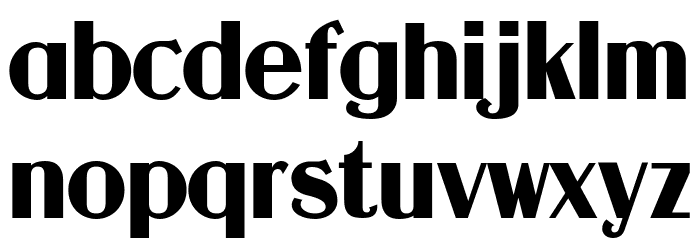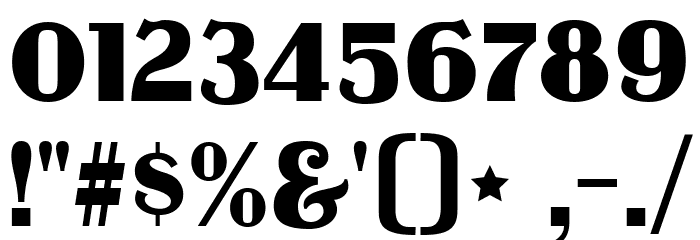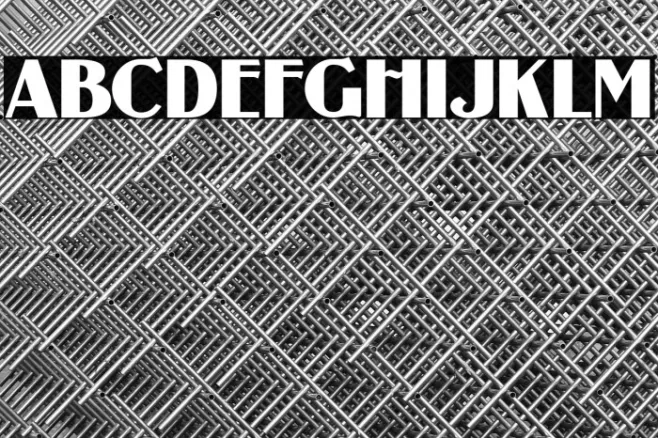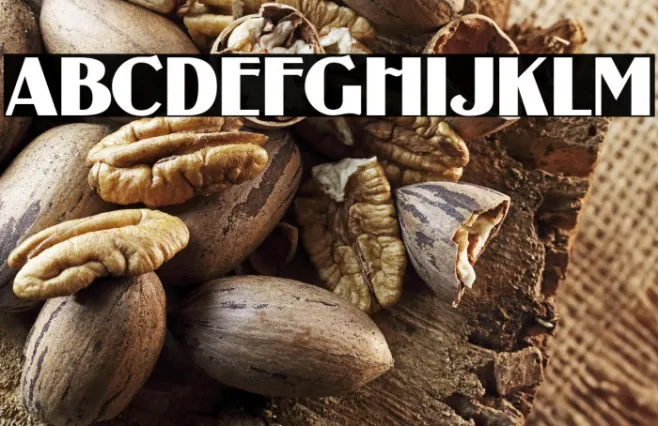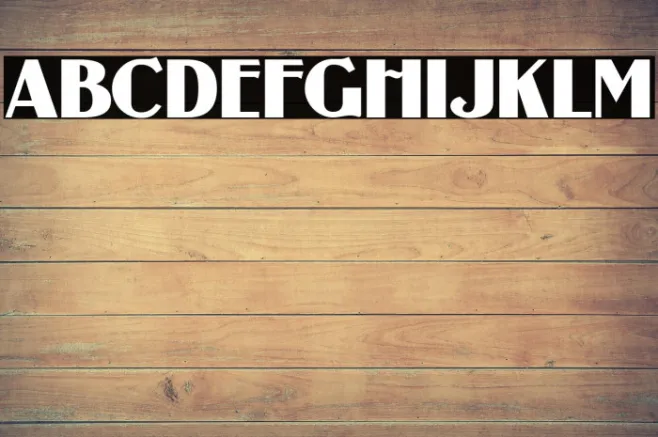
Guanine-Regular Font
This font features a bold and striking design with a strong presence. The characters are crafted with a unique blend of geometric and organic shapes, creating a dynamic and eye-catching appearance. The uppercase letters exhibit a bold stance with sharp angles and subtle curves, while the lowercase letters maintain a consistent weight and style, offering a harmonious balance. The numerals are equally bold, ensuring readability and impact. Special characters are designed with the same attention to detail, making them stand out. The overall design is modern and versatile, suitable for various creative applications.
A bold, modern font with geometric and organic elements, perfect for impactful designs.
- Proposed Projects: Ideal for branding, advertising, poster design, and any project requiring a strong visual impact.